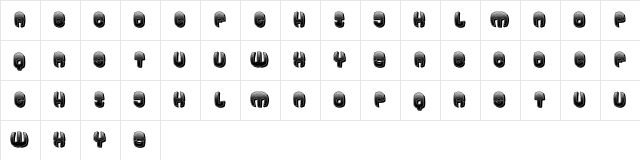
Cushion Regular
Design Context for Cushion Typeface
Cushion is a composed and adaptable typeface that performs quietly and consistently across a wide range of design contexts.